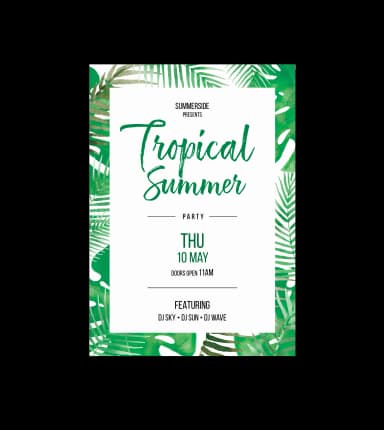
1 / 4About Floridina Font
Floridina by petertype is a flowing brush script with an organic, naturalistic quality that captures the ease and movement of hand-lettering. The font's fluid strokes and spontaneous character make it an excellent choice for wedding invitation suites, artisanal branding projects, seasonal greeting card designs, and boutique product packaging. This typeface brings warmth and authenticity to work that feels genuinely handcrafted, whether you're developing a lifestyle brand identity, creating personalized gift tags, or designing social media graphics.
With over 1200 glyphs at your disposal, Floridina offers substantial character support and variation, enabling sophisticated typographic layering and design flexibility across diverse applications. The brush-like strokes maintain excellent legibility while delivering visual richness, making the font equally suitable for bold display headlines and delicate decorative work. The comprehensive glyph set ensures you have the letterforms, alternates, and ligatures needed for distinctive, thoughtfully crafted projects that stand out in any medium.
- Elegant, Flowing, Floridina
Floridina Font is a script font that shines as a display or heading face. Pair it with a clean sans-serif or serif font for body text β the contrast creates a clear hierarchy while the two styles stay balanced and easy to read.
Floridina Font
by petertype